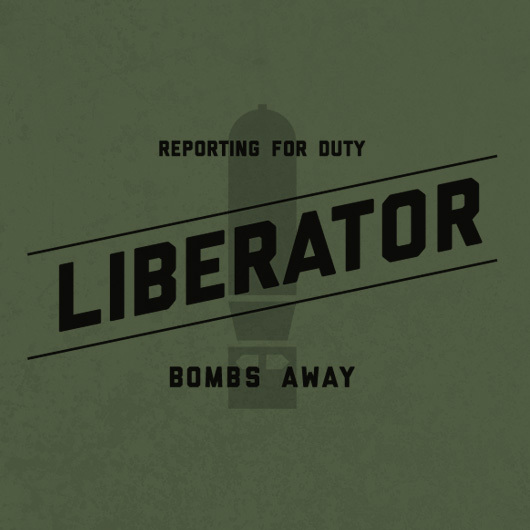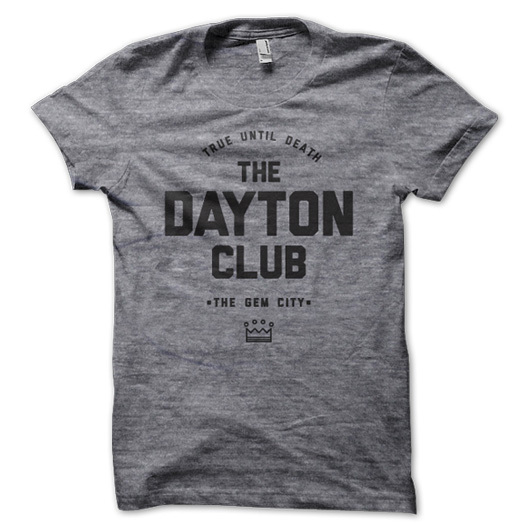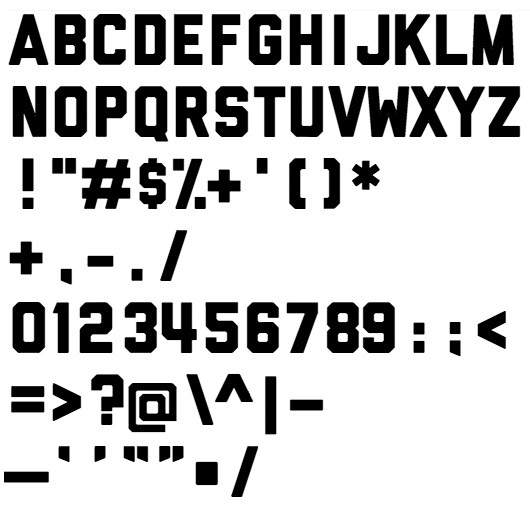
Liberator is from a bygone era, when our grandparents fought for the freedom we enjoy today. Its bomber-inspired face provides a masculine punch to any project or design. Full Alphabet with glyphs and numerals. Windows TrueType and OpenType formats (.ttf/.otf) included.